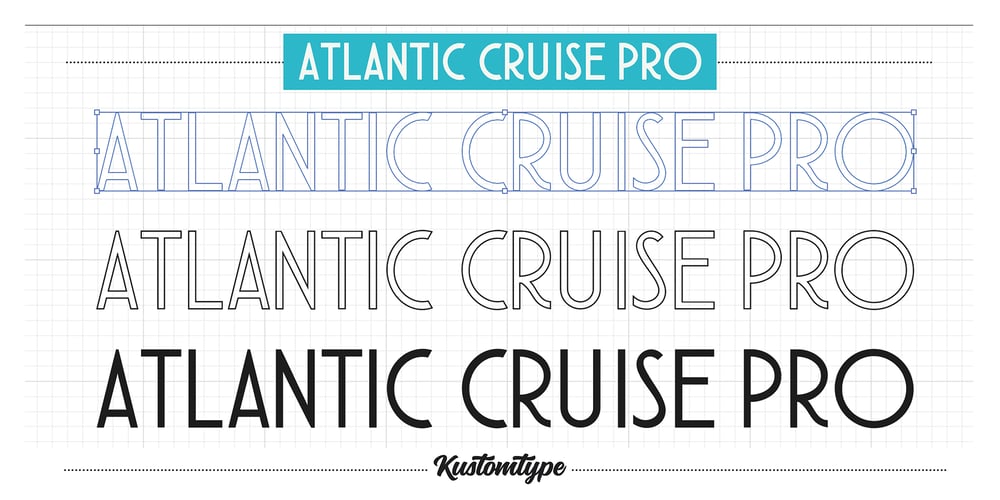
Atlantic Cruise Pro
Atlantic Cruise Pro font
Atlantic Cruise Pro Font Family was designed by Coert De Decker and published by Kustomtype. Atlantic Cruise Pro contains 20 styles and family package options. Set Sail with ‘Atlantic Cruise Pro’ – The Ultimate Midcentury FontStep into timeless elegance with Atlantic Cruise, a vintage-inspired, midcentury modern font by Kustomtype. Reminiscent of classic 1950s travel posters, this bold, stylish, and sophisticated typeface blends retro charm with modern versatility. Featuring 20 weights, italics, and multilingual support, it’s perfect for branding, packaging, editorial design, and more.Upgrade your typography game today!